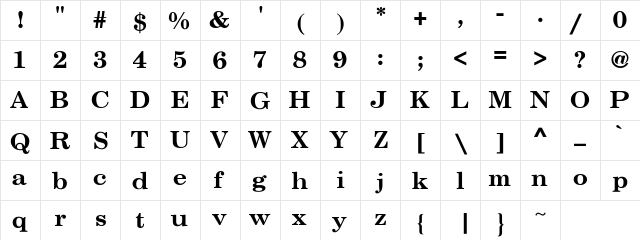
NewCenturySchlb Regular
Design Context for NewCenturySchlb Typeface
NewCenturySchlb takes a measured approach to typography — its balanced proportions and neutral character make it a reliable workhorse for both digital and print work.